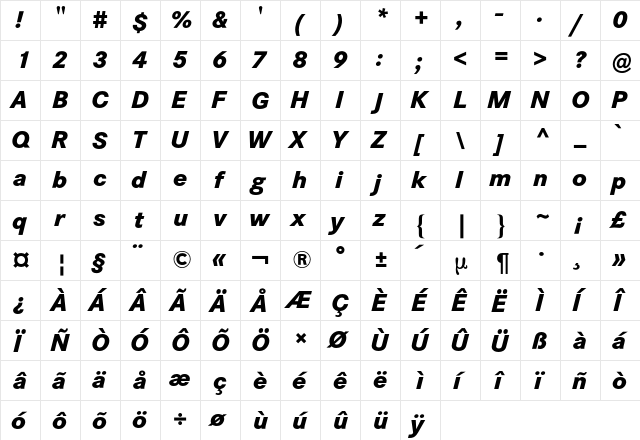
Corporate S BQ Regular Font Preview
Corporate S BQ Regular
Design Context for Corporate S BQ Typeface
Corporate S BQ offers clean, dependable letterforms without strong stylistic allegiance, making it a practical choice for designers who need flexibility.
Pro Tip: Use Corporate S BQ in both headline and body roles to test its range before committing to a single application.